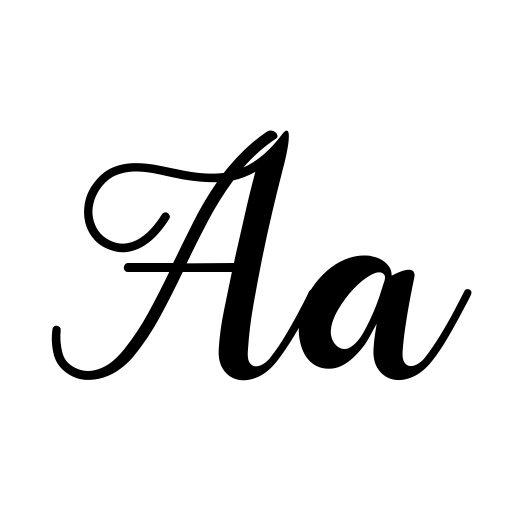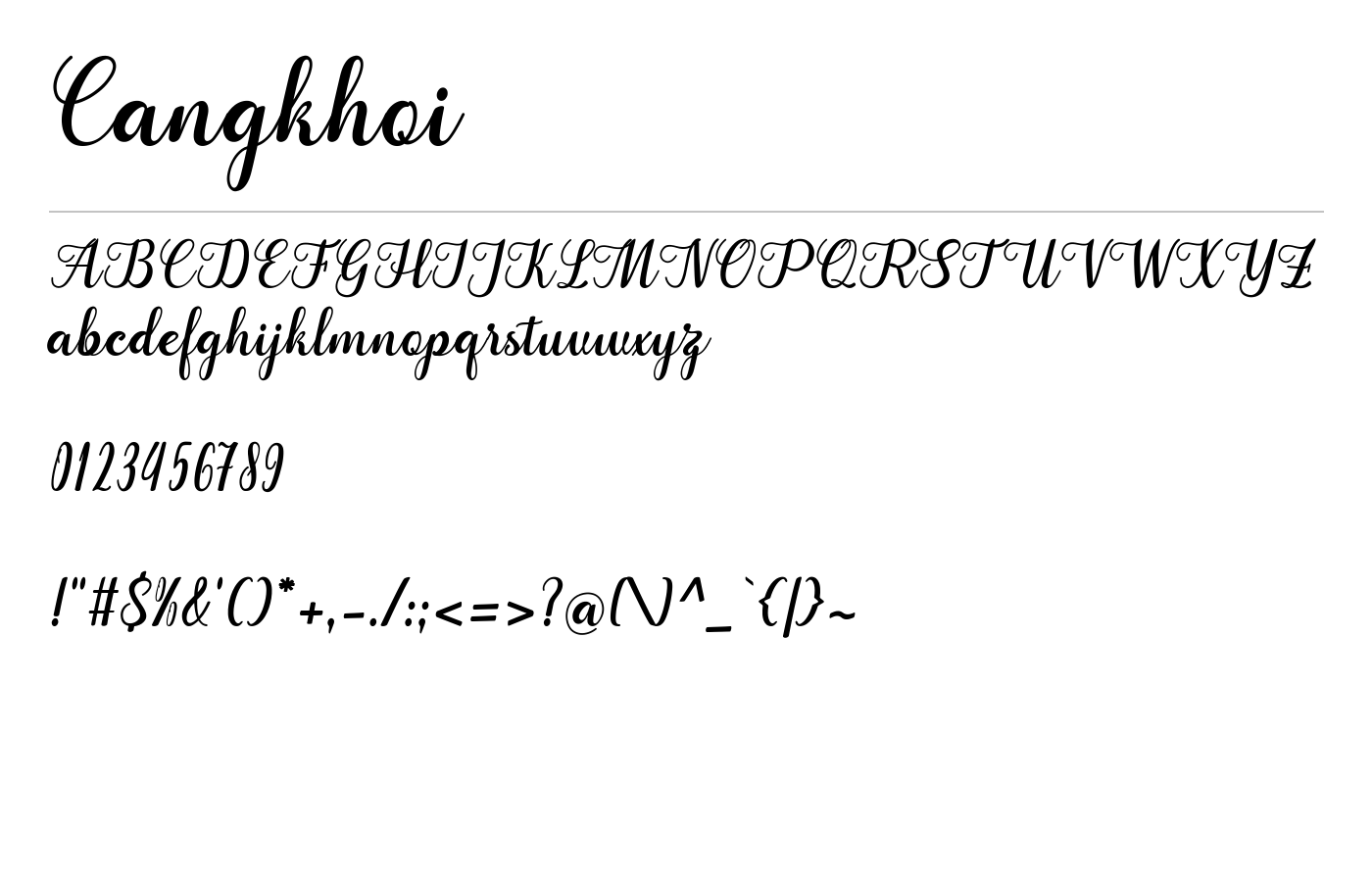
Cangkhoi is an elegant script font with a smooth, flowing style that combines classic calligraphy with a modern touch. Its thin, graceful strokes and slightly condensed letterforms give it a refined and sophisticated feel, making it perfect for invitations, branding, and decorative headlines that require a touch of elegance and personality. This font works beautifully in projects where a stylish, handcrafted look is desired without sacrificing readability.
Cangkhoi Font